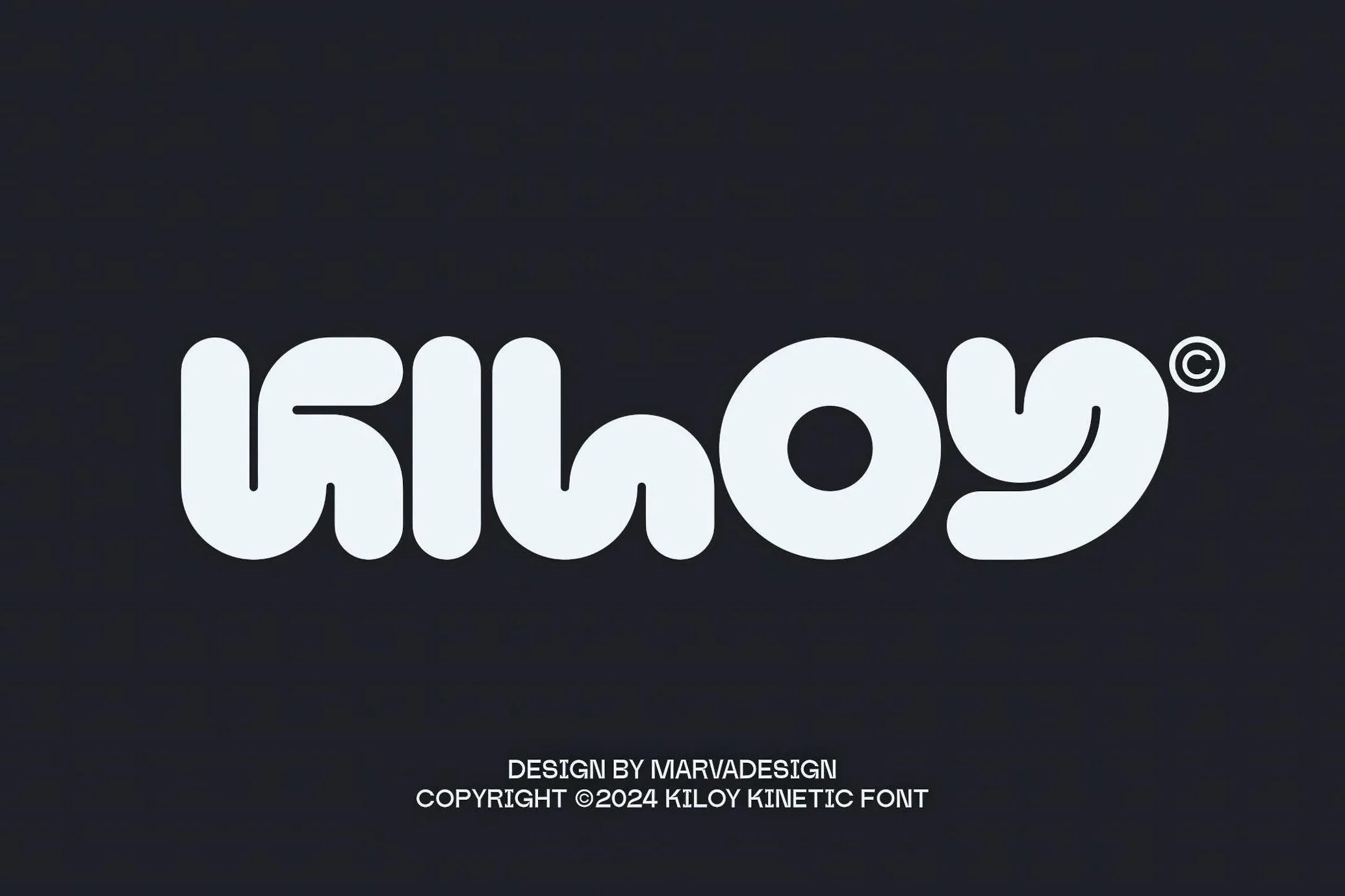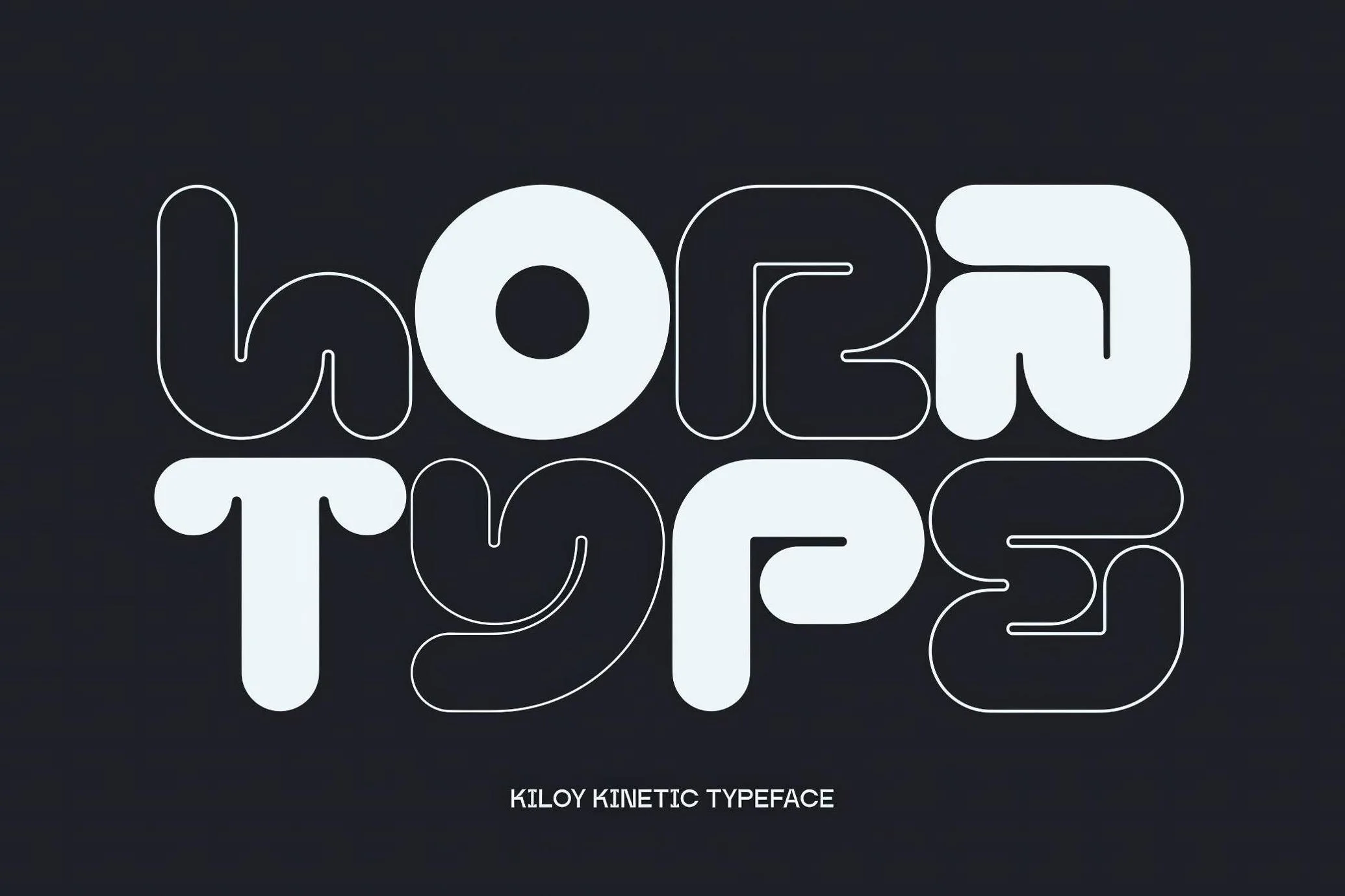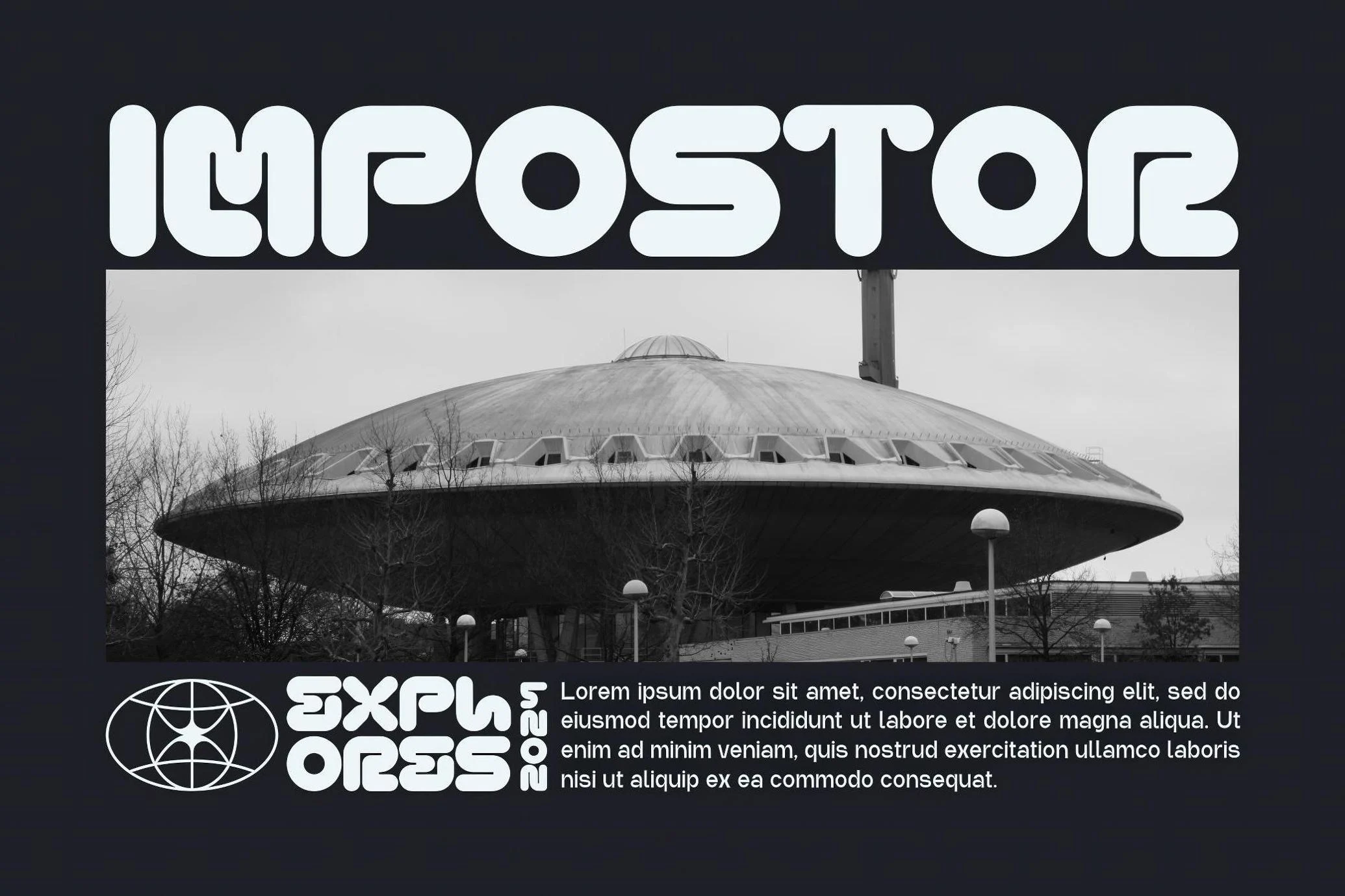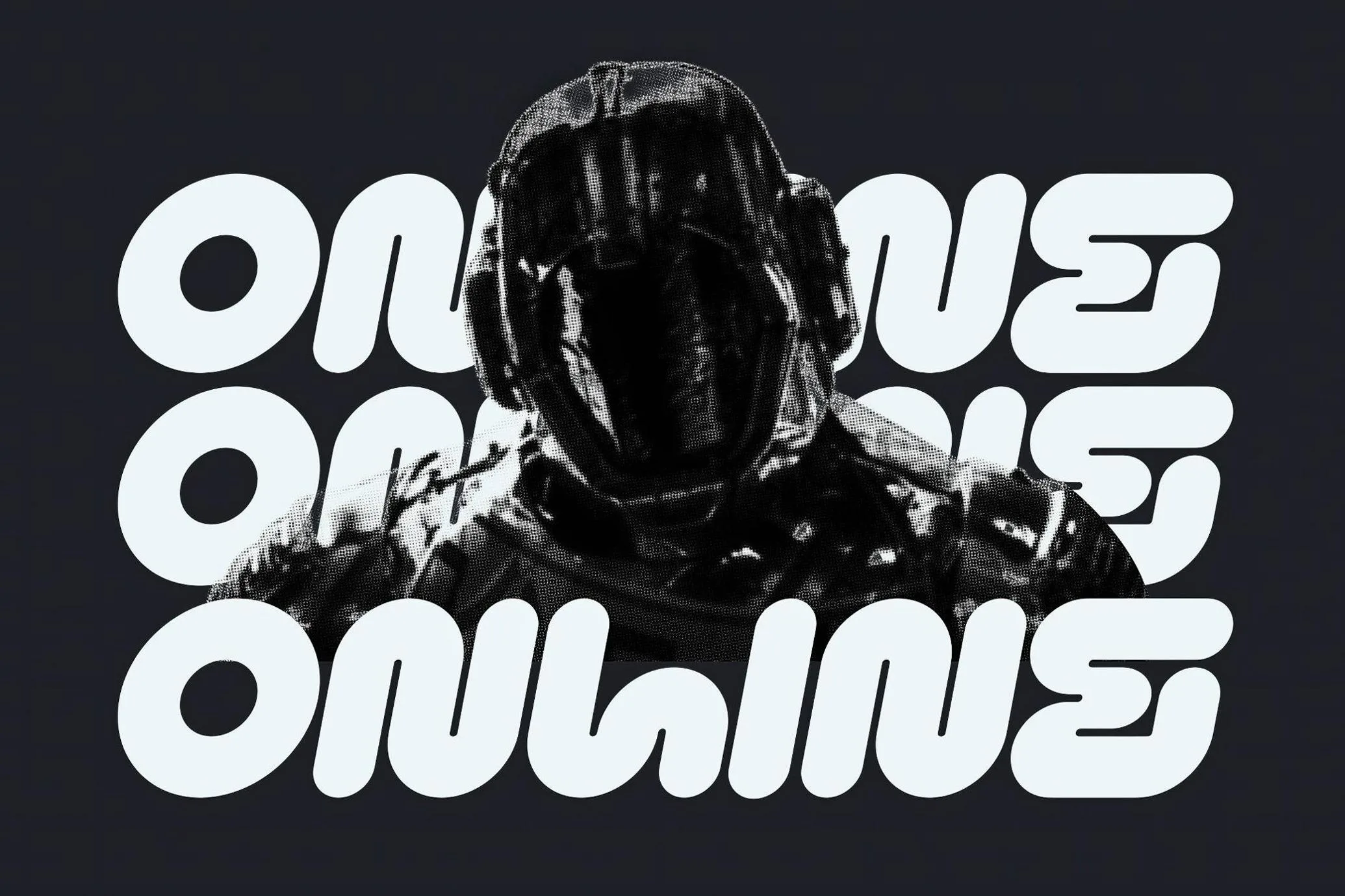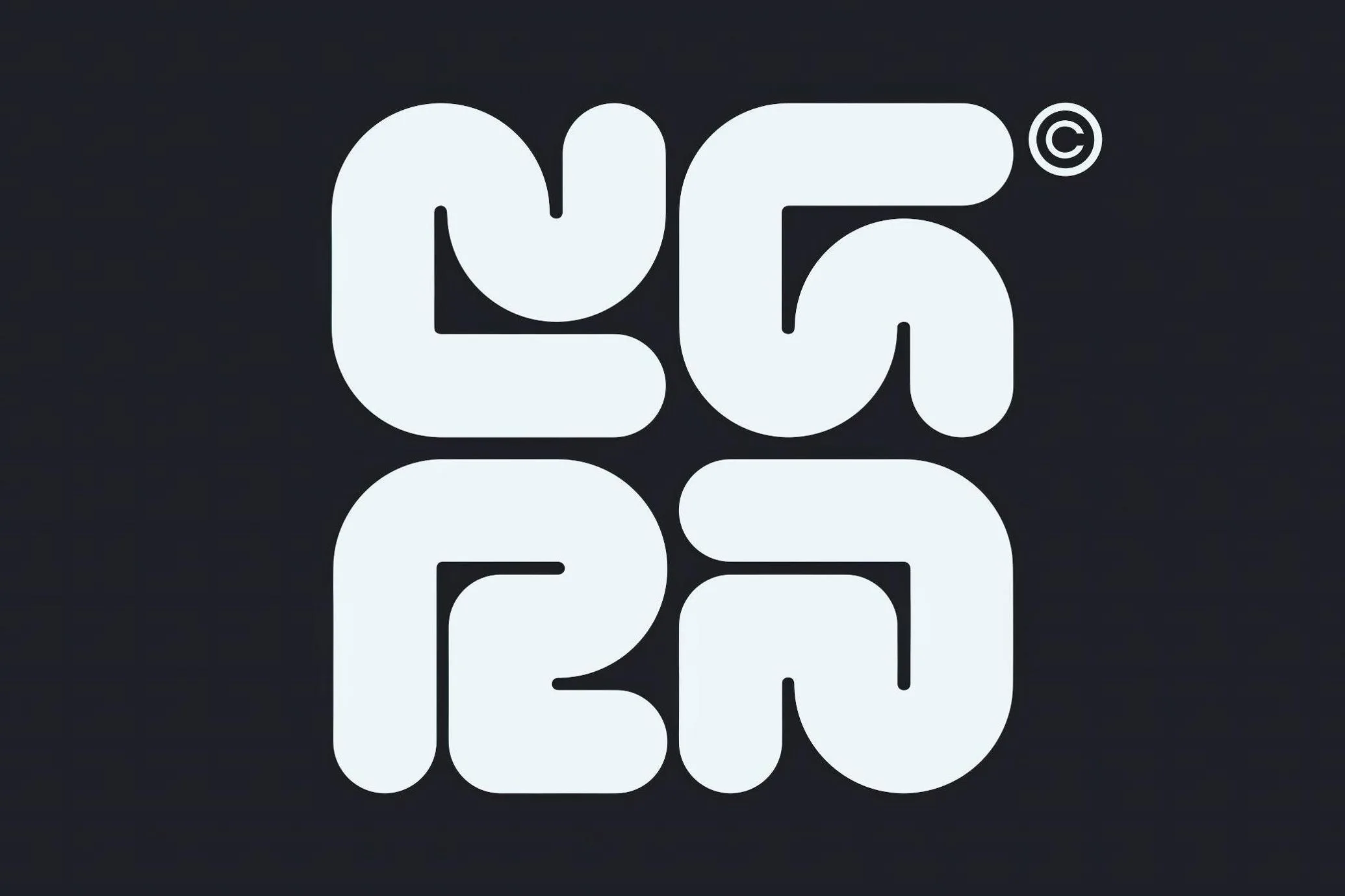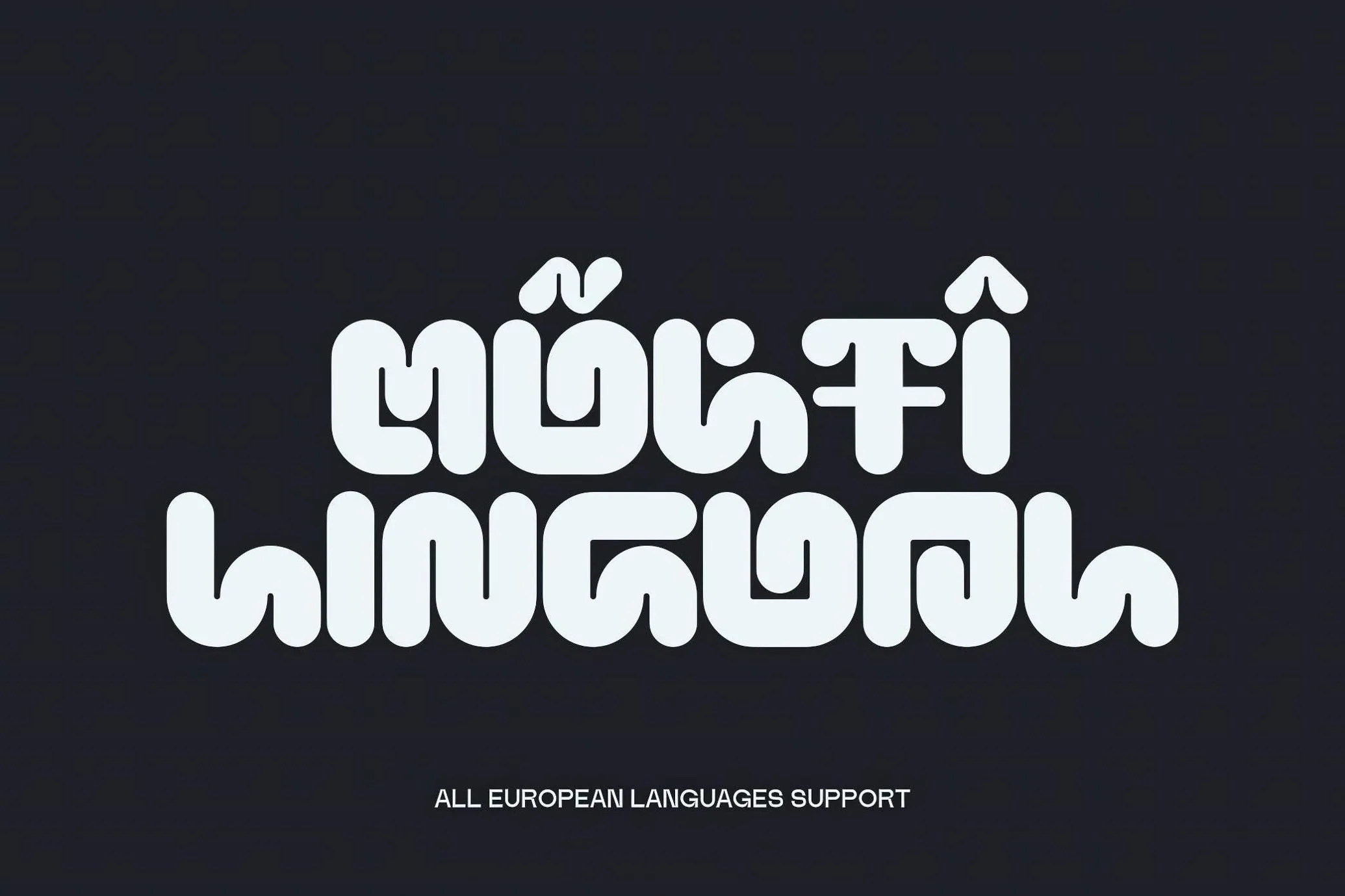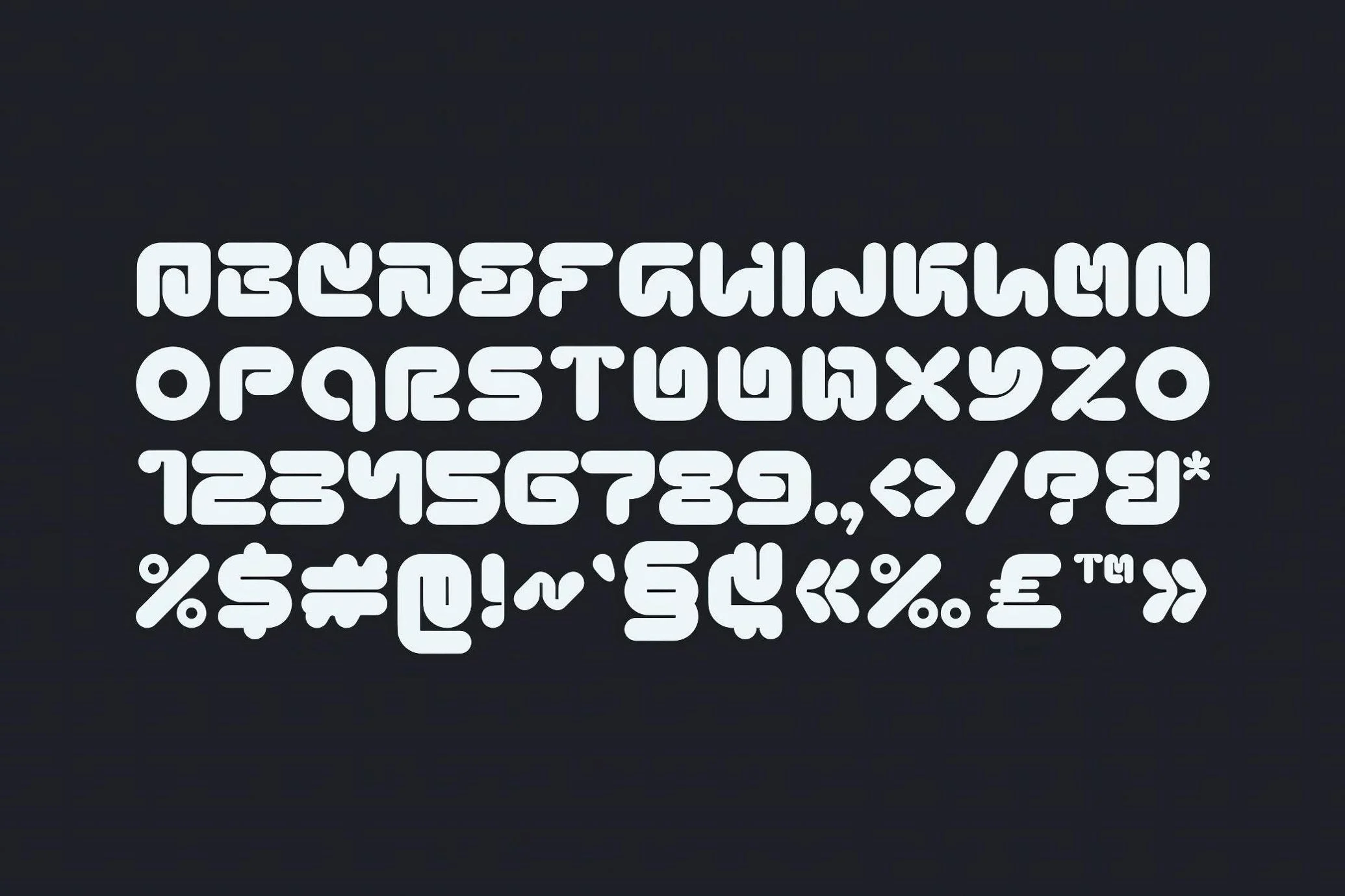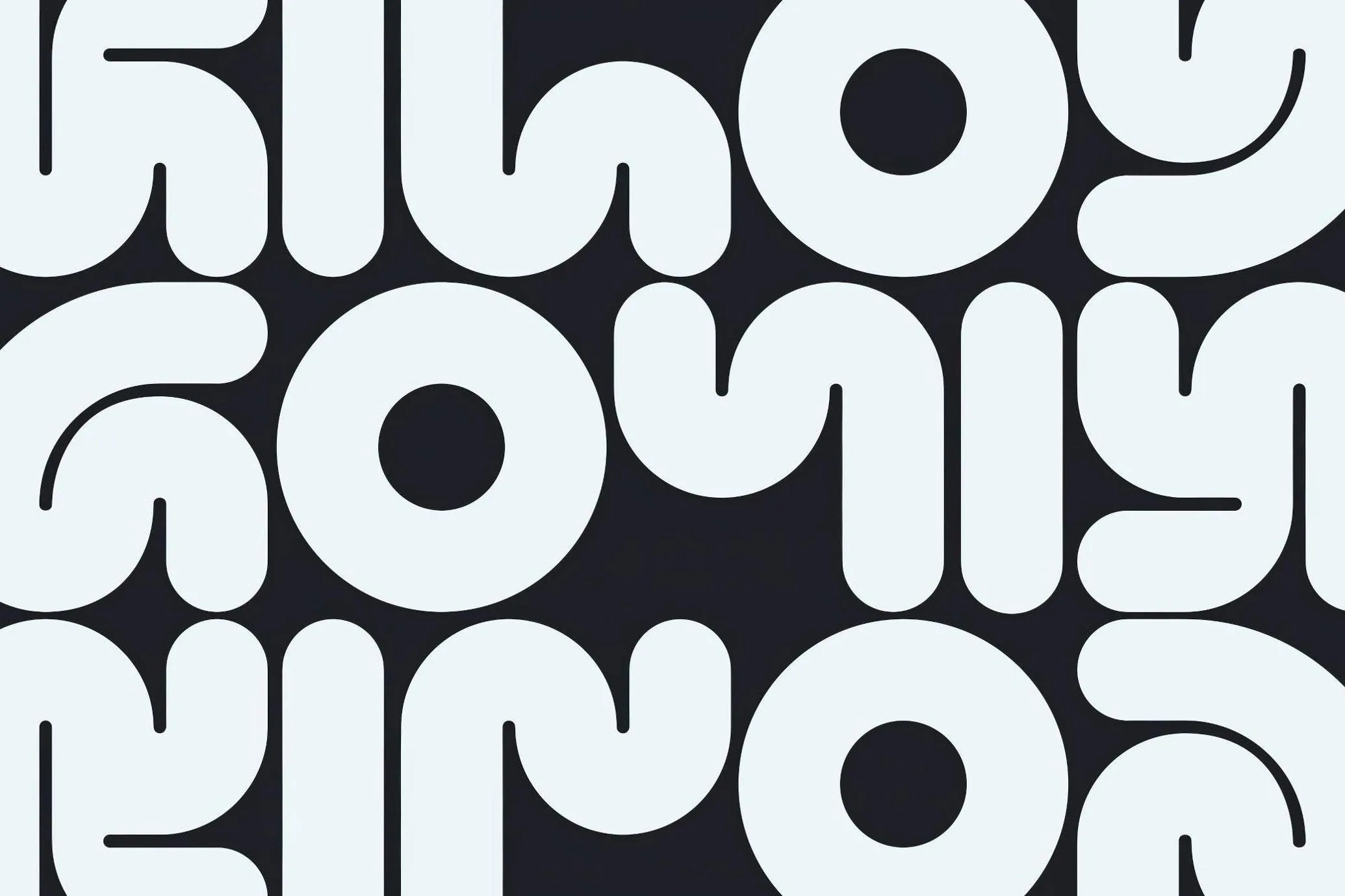
Looking to bring a sleek, modern vibe to your design projects? Meet Kiloy, a rounded techno font that captures the spirit of motion, softness, and modern innovation—all in one stylish typeface. Kiloy’s smooth curves and fluid lines give off a bubble-like, kinetic energy, making it the perfect typeface for any design that needs to feel both futuristic and friendly.
Kiloy stands out for its playful yet minimalist form. The round edges and consistent flow make the font look alive—like it’s always in motion. Whether you’re designing a tech startup logo, UI/UX interface, or modern brand identity, it brings a polished, high-tech feel without sacrificing warmth or personality.
This all-caps display font comes in two styles—Regular and Italic—offering flexibility for a variety of creative needs. From bold tech-themed headlines to energetic branding visuals, Kiloy handles it all with style. It supports numerals, punctuation, and multilingual characters, making it a truly global design tool.
🔧 Key Uses of Kiloy Font:
-
Logo Design: Make your brand identity pop with a futuristic edge.
-
Headlines & Posters: Command attention in print or digital formats.
-
Web & App Interfaces: Perfect for modern UI design with a sleek, legible style.
-
Tech Products: Use it on packaging, dashboards, or promotional content.
-
Futuristic Branding: Ideal for sci-fi, digital, crypto, or gaming brands.
Whether you’re a designer building the next big tech brand, a creative experimenting with bold visuals, or simply someone looking to add a fresh and futuristic font to your toolkit— it delivers both aesthetics and utility in one seamless package.